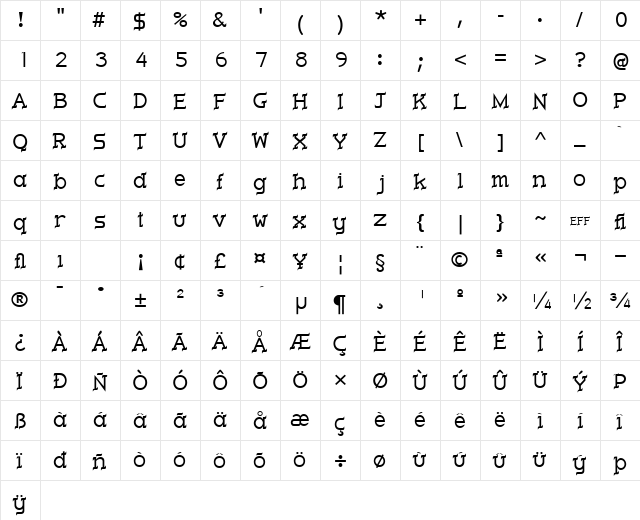
IcePick Regular
Design Context for IcePick Typeface
IcePick is a composed and adaptable typeface that performs quietly and consistently across a wide range of design contexts.
Pro Tip: Pair IcePick with a font of contrasting weight or personality to build a more expressive typographic hierarchy.